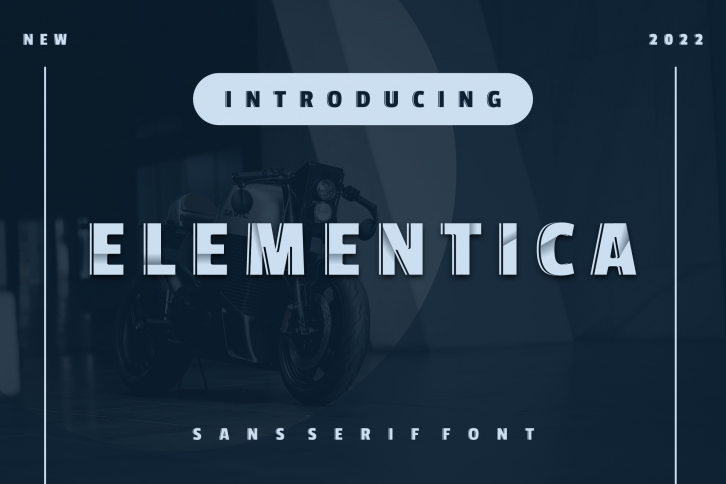
Introducing our new product elementica font – Modern Font
elementica font – Modern Font is a bold and authentic display font. The font is suitable for any branding project like logo, t-shirt printing, esport, and many more. outstanding in a wide range of contexts.